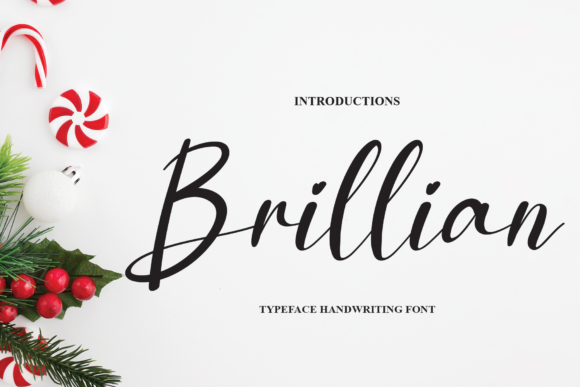
The Brillian Font: A Timeless Choice for Creative Designs
Have you ever been in the middle of a design project, and suddenly, you’re stuck on finding the perfect font? I recall a recent experience where a client’s request for a unique, handwritten logo had me scouring the internet for hours. That’s when I stumbled upon the Brillian font, and it instantly became my go-to choice. In this article, we’ll explore what makes Brillian an excellent option for designers, crafters, and creative hobbyists.
What Makes Brillian Special?
Brillian is an everlasting handwritten font designed to create eye-catching logos, branding, and quotes. Each character boasts an original and delicate touch, elevating your design to new heights. The font’s unique features make it an excellent choice for various creative projects.
An Honest Review of Brillian Font
What I Love About Brillian ✨
- 💫 Unique and delicate character design
- ✅ Easy to read and understand
- 🎨 Highly versatile for various design projects
- 🔥 Perfect for creating eye-catching logos and branding
- ⚠️ Limited availability of stylistic alternates
- ⚠️ Some characters may require manual kerning
The Backstory of Brillian Font
The Brillian font was designed with the intention of creating a timeless, handwritten font that would inspire creativity. The designer aimed to craft a font that would be both elegant and approachable, making it perfect for a wide range of design projects.
Q: What type of projects is Brillian best suited for?
A: Brillian is perfect for creating eye-catching logos, branding, and quotes, as well as other creative projects that require a personal touch.
Q: Is Brillian a difficult font to read?
A: No, Brillian is designed to be easy to read and understand, making it perfect for designs that require clear communication.